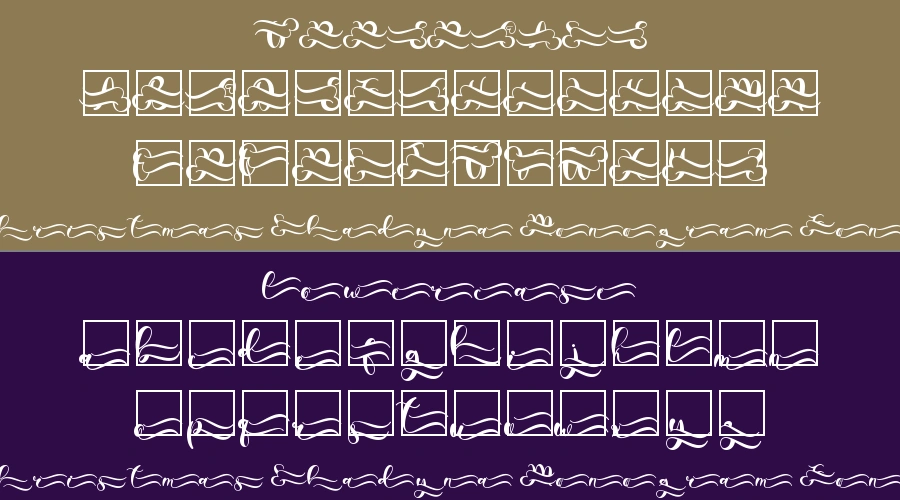
About Christmas Shadyna Monogram Font
Christmas Shadyna Monogram Font represents a sophisticated approach to type design, balancing swash extensions with typographic color. Perfect for product naming, this font family showcases impressive sophistication and visual authority throughout its character set. Designers appreciate its versatility and reliability.
Designers will appreciate nuanced touches including perfect spacing and mathematical symbols, adding sophistication to any project. These features become apparent in event graphics, where body text reading matters most. The careful treatment of bowl width and industrial acceptance ensures optimal performance.